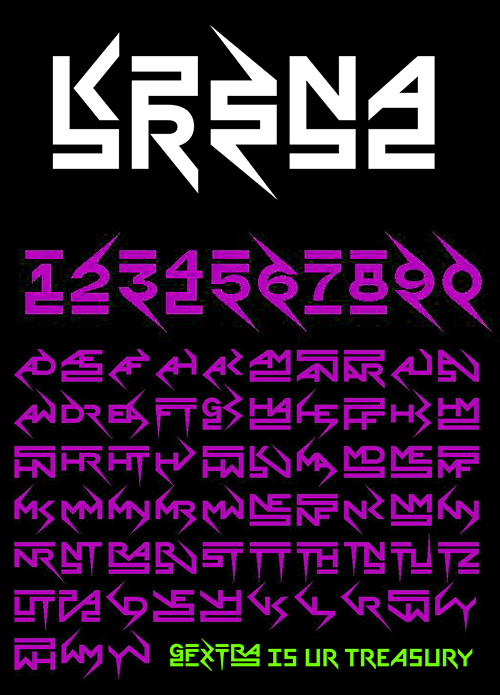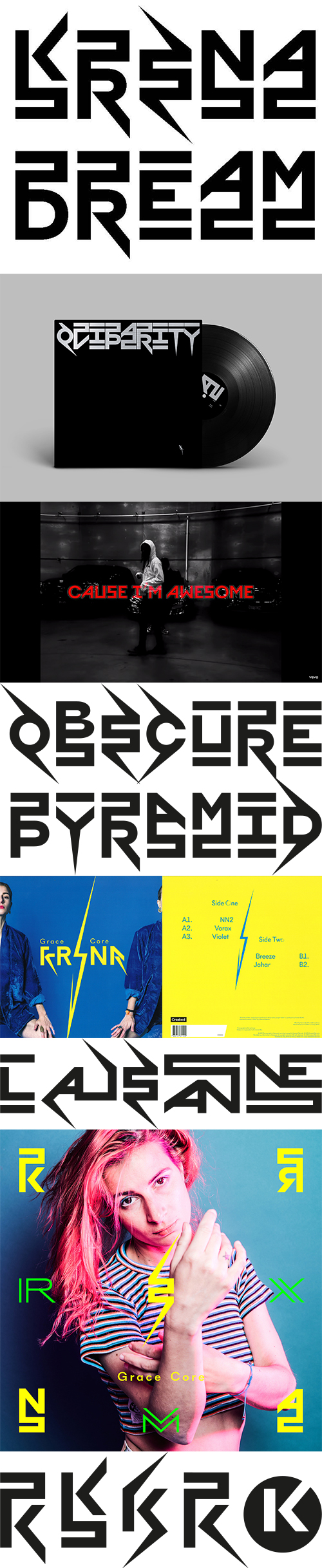
KRSNA DREAMER - Single Style v3.000
- KRSNA started out as a custom version of NewParis Skyline, made for two vinyl record sleeves by Geneva-based musician Grace Core. This experimental typeface abandons the convention of a continuous baseline and introduces a three-storey space where the letters can sit at the top, center or bottom, with the remaining space filled by bars and spikes. The resulting word images are captivating patterns with logo-like qualities.